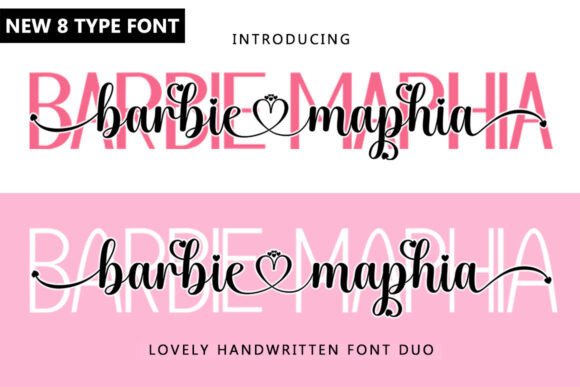
Introducing Barbie Maphia Font: A Cheerful and Romantic Font Duo
The world of typography has just gotten a little more exciting with the introduction of the Barbie Maphia Font, a delightful font duo that is sure to capture your heart. This beautiful design features a cheerful and romantic font duo, consisting of “Barbie Maphia Script, Barbie Maphia Winter, and Barbie Maphia Vibes.” Each font in this collection has been carefully crafted to bring a unique and charming aesthetic to your projects, making it perfect for weddings, invitations, love themes, or feminine branding.
The Main Font: A Bold and Elegant Sans-Serif Typeface
The main font in the Barbie Maphia collection is a large, bold sans-serif typeface with a soft touch. Accented with delicate cursive flourishes and heart shapes, this font exudes a charming and unique look that is sure to make your projects stand out. The bold and elegant design of this font makes it perfect for headings, titles, and other display purposes, while its soft touch ensures that it remains approachable and friendly.
One of the standout features of this font is its use of delicate cursive flourishes and heart shapes. These flourishes add a touch of elegance and sophistication to the font, making it perfect for projects that require a high level of refinement. The heart shapes, on the other hand, add a playful and romantic touch, making the font ideal for love themes, weddings, and other celebrations of love.
The Script Font: Elegant and Flowing Handwritten-Style Letters
The script font in the Barbie Maphia collection is a beautiful, elegant, and flowing handwritten-style font that further enhances the romantic and refined aesthetic of the font duo. This font features beautiful, cursive letters that are perfect for adding a touch of elegance and sophistication to your projects. The script font is ideal for use in wedding invitations, love letters, and other romantic correspondence, as well as for feminine branding and packaging.
One of the key features of the script font is its flowing, connected letters. This creates a beautiful, fluid look that is perfect for creating a sense of continuity and flow in your projects. The elegant and refined design of the script font also makes it perfect for use in high-end branding and packaging, where a sophisticated and luxurious look is required.
A Harmonious and Visually Appealing Font Duo
Together, the main font and script font in the Barbie Maphia collection create a harmonious and visually appealing look that is perfect for a wide range of projects. The bold and elegant sans-serif typeface pairs perfectly with the elegant and flowing script font, creating a beautiful contrast that adds depth and interest to your projects.
The Barbie Maphia font duo is perfect for projects related to weddings, invitations, love themes, or feminine branding. The warm and approachable design of the fonts, combined with their modern yet timeless appeal, makes them ideal for creating beautiful and effective designs that will stand the test of time.
Usage Examples for Barbie Maphia Font
- Wedding invitations and stationery
- Love letters and romantic correspondence
- Feminine branding and packaging
- Wedding and event signage
- Social media graphics and posts
Benefits of Using Barbie Maphia Font
There are many benefits to using the Barbie Maphia font duo in your projects. Some of the key benefits include:
- Unique and charming aesthetic: The Barbie Maphia font duo has a unique and charming aesthetic that is sure to make your projects stand out.
- Perfect for romantic themes: The font duo is perfect for projects related to love themes, weddings, and other celebrations of love.
- Feminine and elegant: The font duo has a feminine and elegant design that is perfect for feminine branding and packaging.
- Modern yet timeless: The font duo has a modern yet timeless appeal that ensures your designs will stand the test of time.
In conclusion, the Barbie Maphia font duo is a beautiful and charming font collection that is perfect for a wide range of projects. With its unique and charming aesthetic, modern yet timeless appeal, and feminine and elegant design, this font duo is sure to make your projects stand out. Whether you’re working on a wedding invitation, love letter, or feminine branding project, the Barbie Maphia font duo is a great choice.